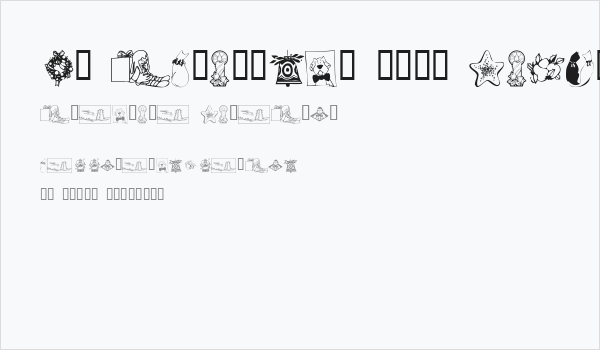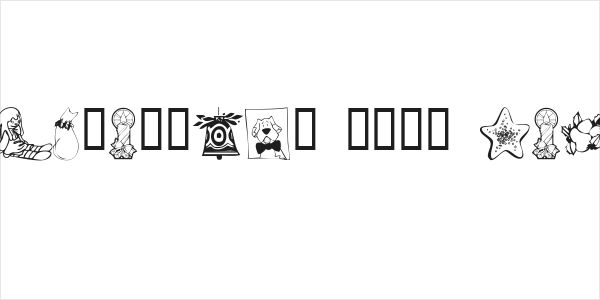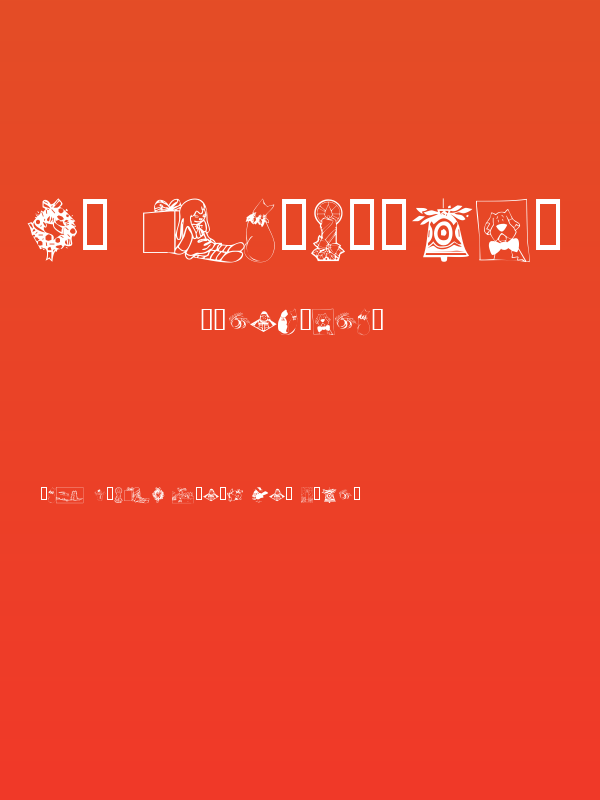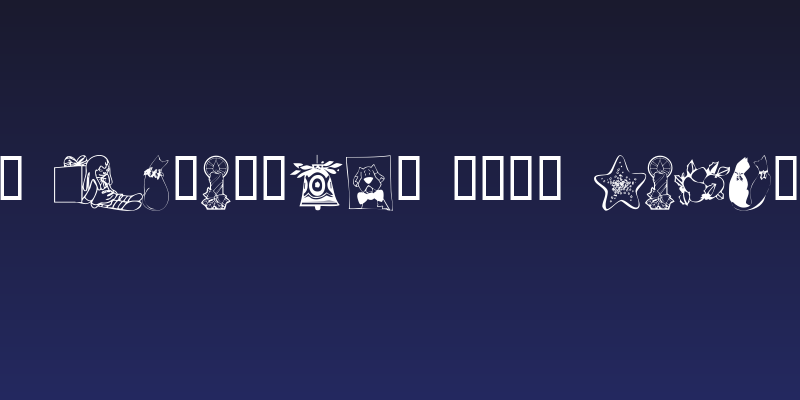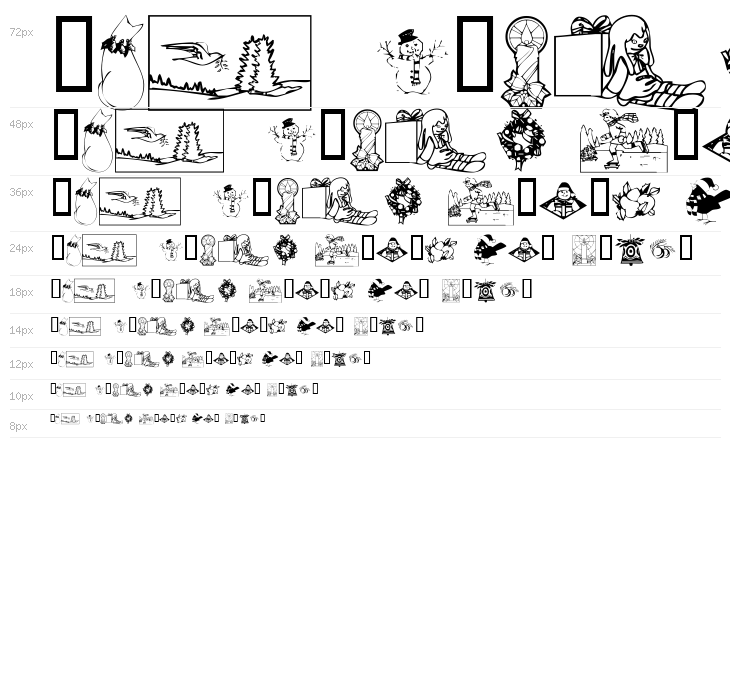
KR Christmas 2002 Dings 5 Font
KR Christmas 2002 Dings 5 Description
This is a decorative font featuring a variety of Christmas-themed dingbats. Each character is represented by a unique holiday illustration, including snowmen, stars, bells, and festive scenes. The designs are bold and playful, capturing the essence of the holiday season with a whimsical touch. The illustrations are detailed, making them suitable for adding a festive flair to any project. The font is perfect for holiday cards, party invitations, and other seasonal designs where a touch of Christmas spirit is desired.
| Use Case | Logos, Headlines, Decorative elements |
| Proposed Projects | Ideal for holiday cards, festive invitations, Christmas-themed posters, and seasonal decorations. |